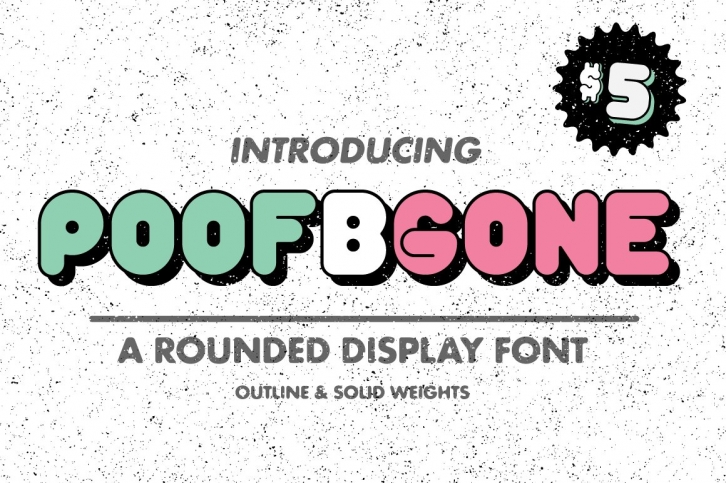
When in doubt, round it out. A built-from-scratch title font. All-caps and special characters (no lowercase sorry). There are two weights: solid and outline.